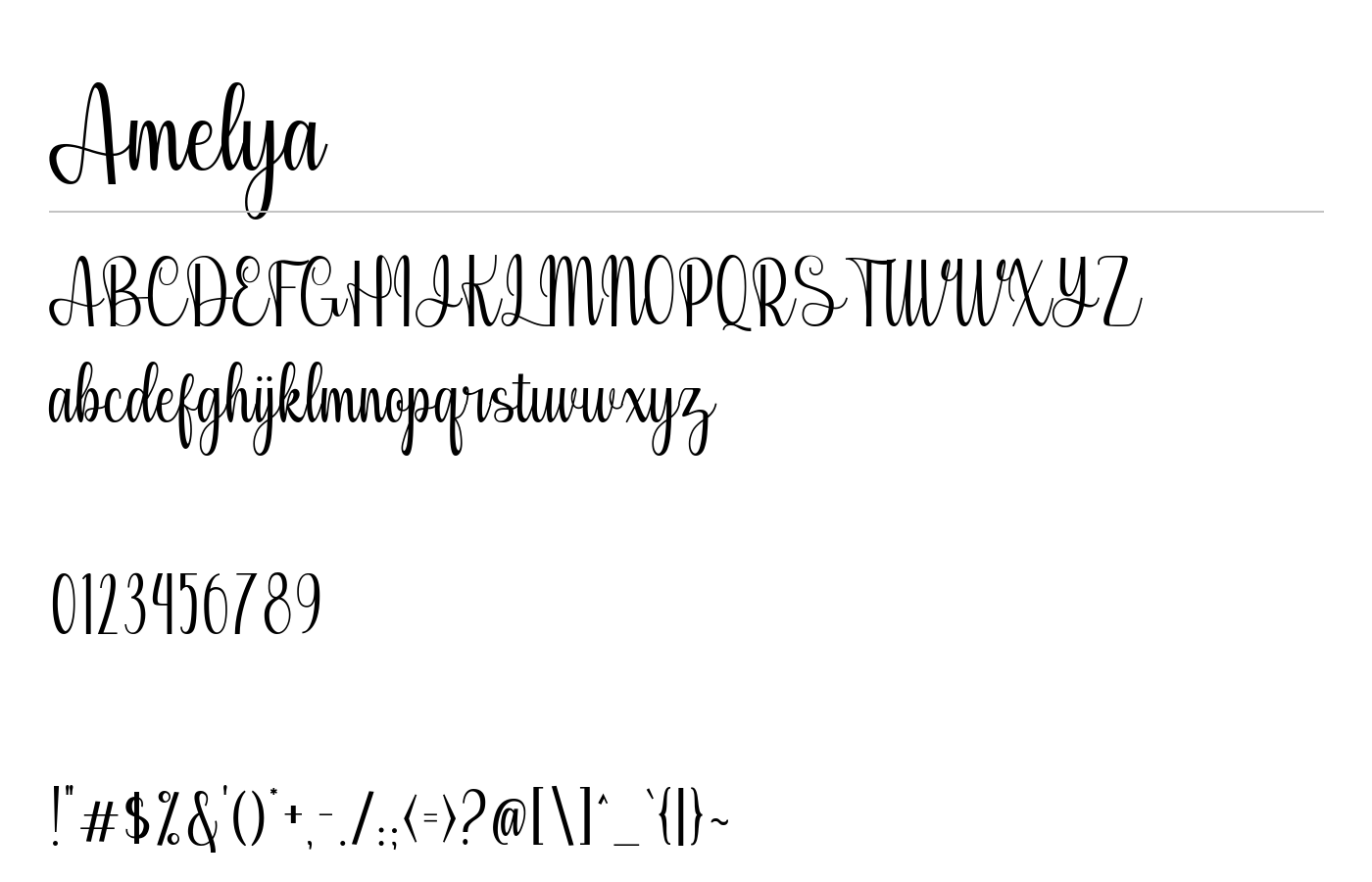
Amelya is a delicate, handwritten script font with slender, elegant letterforms and smooth, flowing strokes that create a graceful and refined look. Its tall, narrow characters paired with subtle curls and swashes give it a charming, feminine personality, making it perfect for invitations, branding, and editorial designs that seek a touch of sophistication and warmth. This font works best in decorative settings where a stylish, personal feel is desired, especially for fashion, beauty, or lifestyle projects.
Amelya Font
About Amelya Font